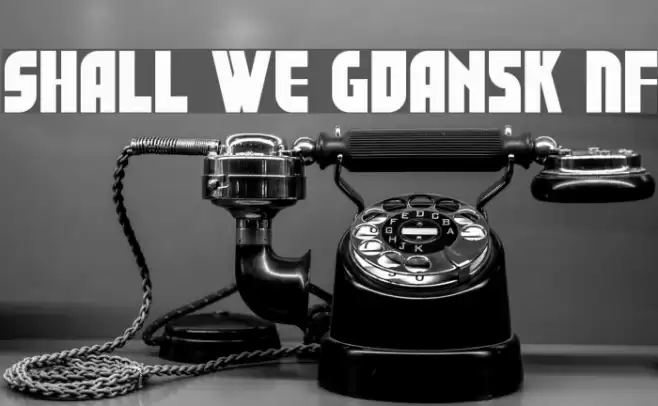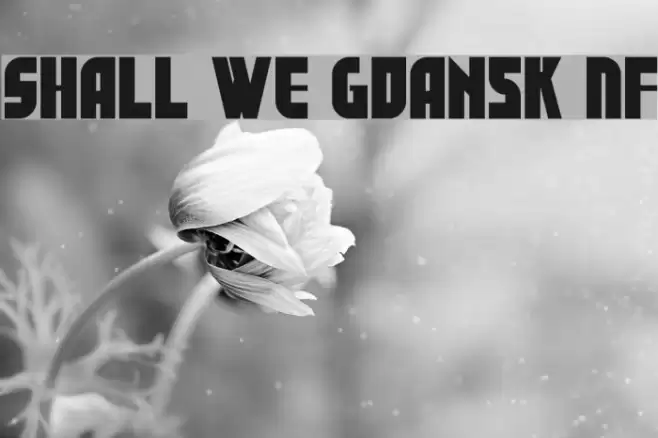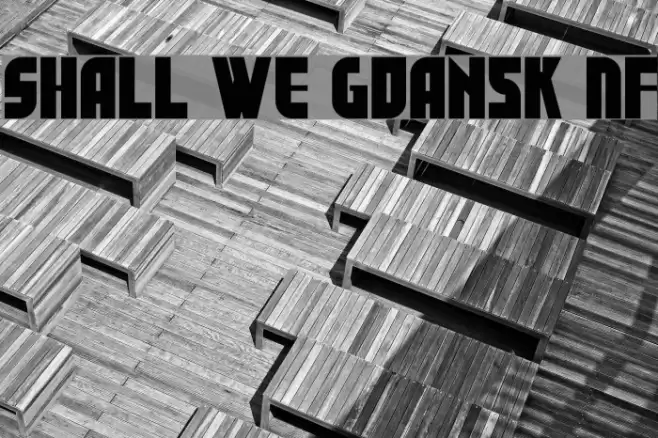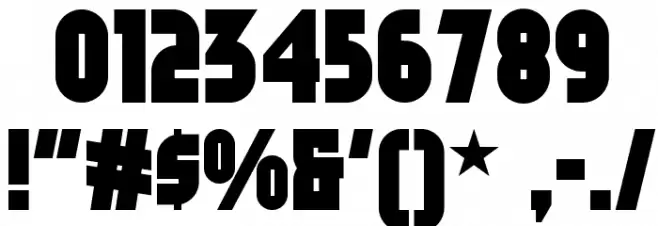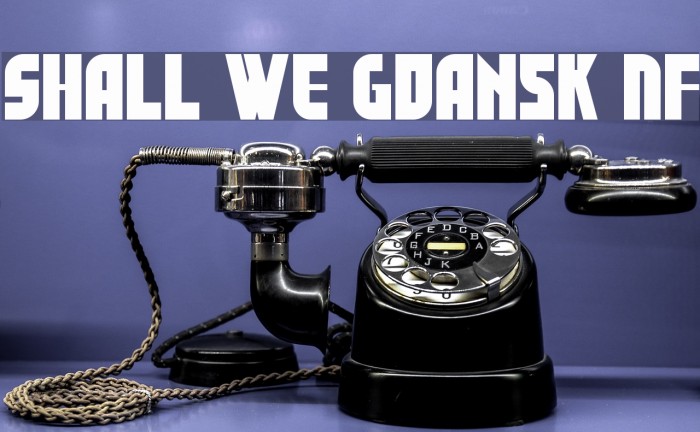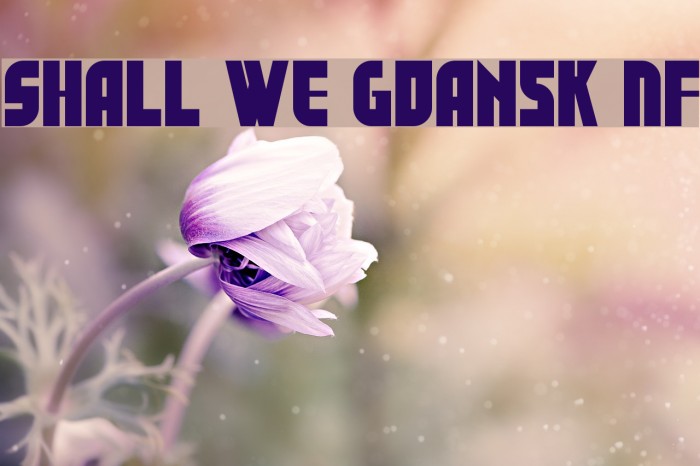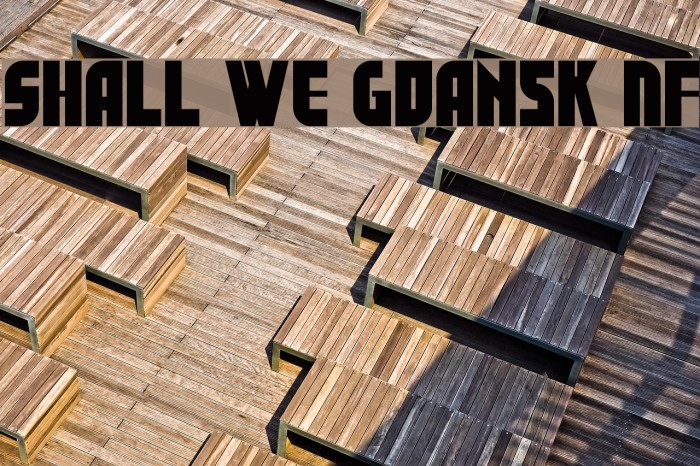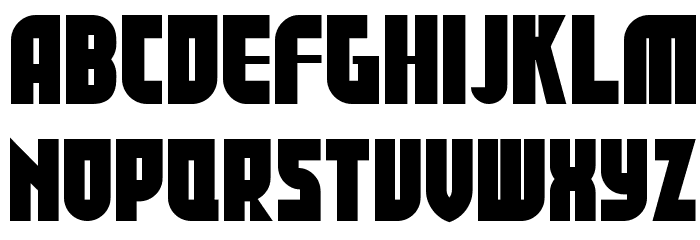
Shall We Gdansk NF Font
Shall We Gdansk NF Description
This font features bold, geometric letterforms with a strong presence. The characters are constructed with thick, uniform strokes, giving them a robust and impactful appearance. The angular design and sharp edges contribute to a modern and industrial aesthetic. The uppercase letters are particularly striking, with a consistent height and width that create a cohesive look. The numerals and special characters maintain the same bold style, ensuring uniformity across all elements. This font is ideal for making a statement, with its high visibility and attention-grabbing qualities.
A bold, geometric font with a modern, industrial aesthetic from Script fonts.
- Proposed Projects: Ideal for posters, headlines, branding, and any design requiring a strong visual impact.